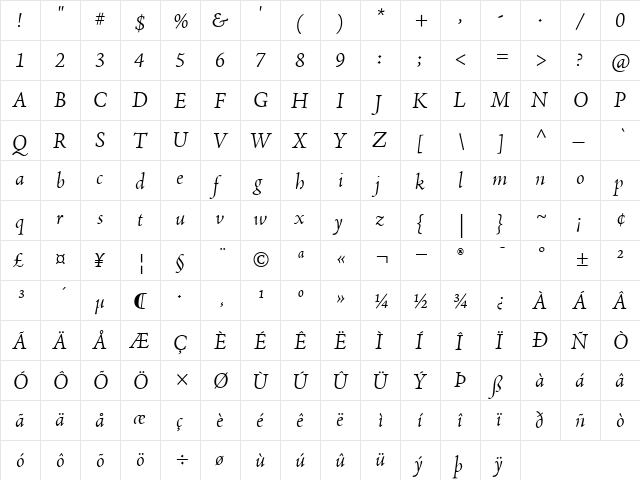
AdobeJenson RomanItalic Font Preview
AdobeJenson RomanItalic
Design Context for AdobeJenson Typeface
AdobeJenson is a composed and adaptable typeface that performs quietly and consistently across a wide range of design contexts. Its italic angle brings a sense of urgency and motion to the letterforms.
Pro Tip: Try AdobeJenson for annotation and caption copy alongside an upright companion — the contrast in angle creates a dynamic but ordered typographic system.